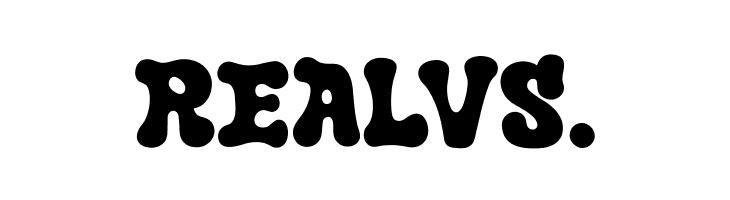
( Fonts by notaljx )
Playful, bold calligraphic font with rounded edges.
( Fonts by bob istheowl http://luc.devroye.org/bobistheowl.html )
Highly detailed illustrative font based on Alice in Wonderland scenes.
A whimsical, hand-drawn font with a playful and enchanting style.
A playful, handwritten font with uneven strokes and a casual style.
A classic serif font with elegant strokes and balanced proportions.
A playful, bold font with rounded, bubbly characters.
A futuristic, geometric font with a thin, outlined design and three-dimensional effect.
A lively and elegant script font with flowing, cursive letterforms.
A sophisticated cursive script font with elegant flourishes.
A playful, decorative font with bold, rounded characters and unique cutouts.
A bold, geometric font with a futuristic and playful design.
A bold, futuristic font with sharp, angular edges and a geometric structure.
A bold, futuristic italic font with sharp, angular edges.
A bold, playful font with rounded edges and a quirky, retro-futuristic style.
( Fonts by Hanoded )
A playful, bold font with a whimsical, hand-drawn style.
A bold, futuristic font with alien-like, abstract character designs.
A decorative font with abstract, alien-like shapes and molecular designs.
( Christian Munk - fontstruct.com/fontstructors/25776/cmunk )
A futuristic, geometric font with bold, rounded edges and a double-line effect.
Playful hand-drawn alien and monster character font.
Whimsical hand-drawn font with unique alien and monster illustrations.
A bold, geometric font with a futuristic and modern design.